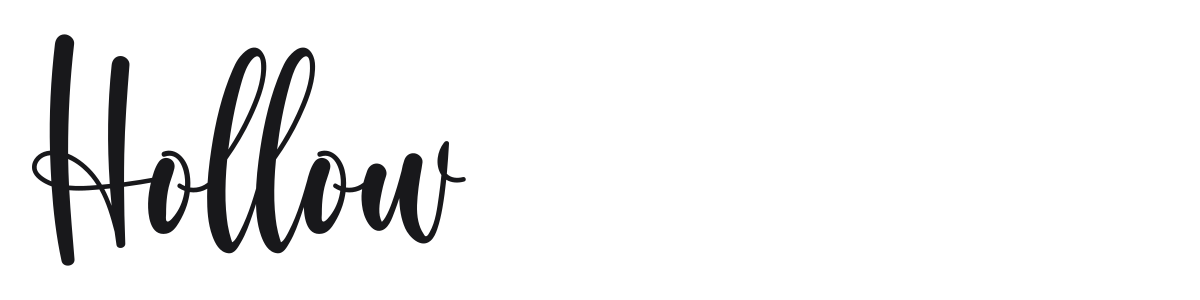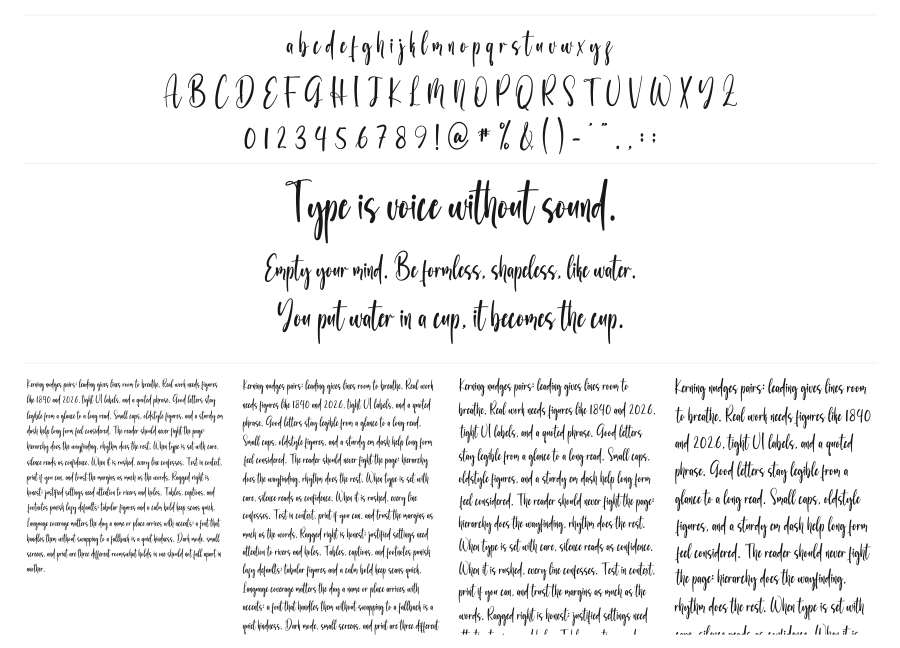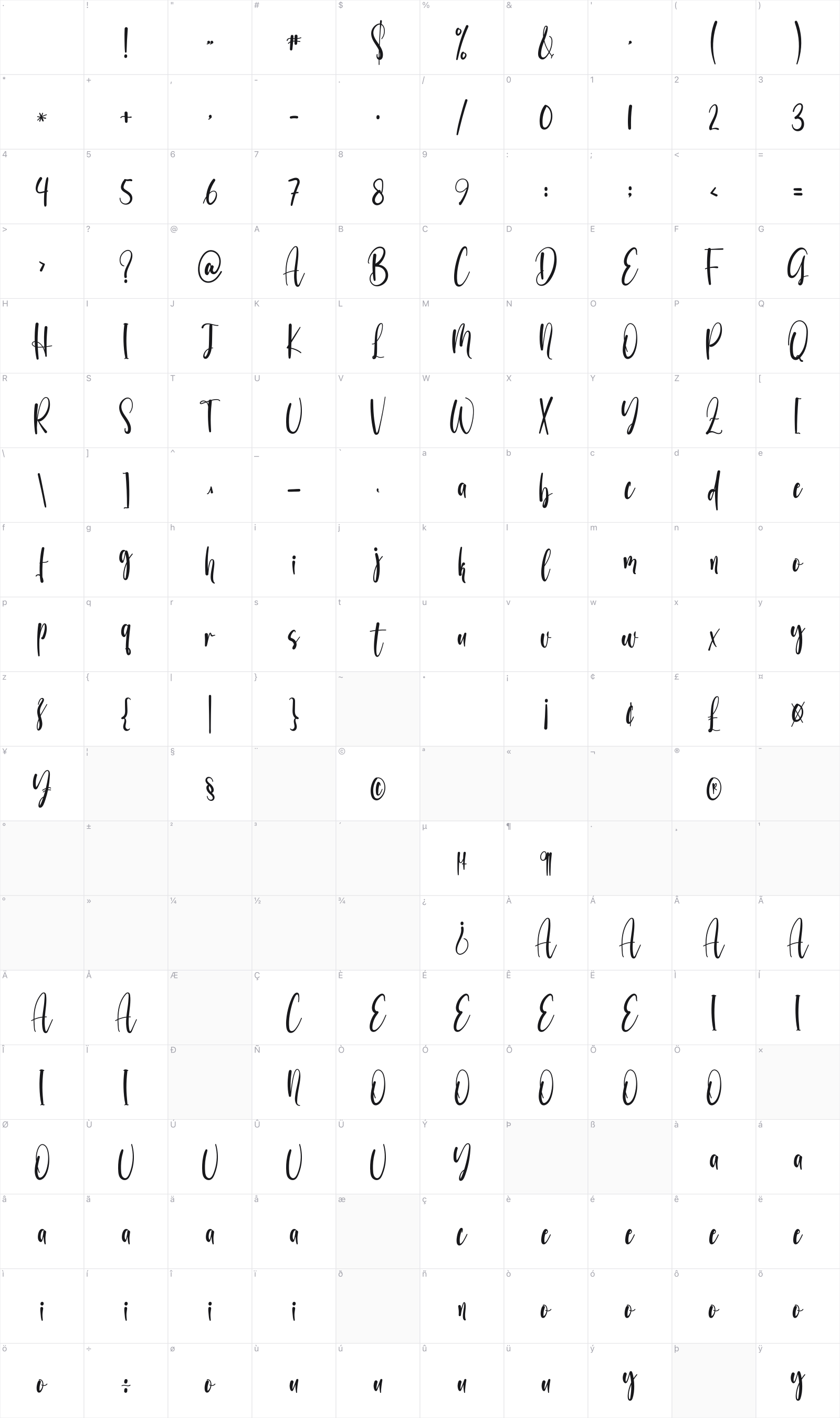
Hollow
Hollow is a contemporary casual script with deep calligraphic roots and a lively, modern energy. Thick-to-thin stroke contrast and natural baseline bounce give it the feel of a confident brushed hand rather than a stiff calligraphic exercise. It works across titles, stationery, and brand identity wherever warmth and personality are needed.